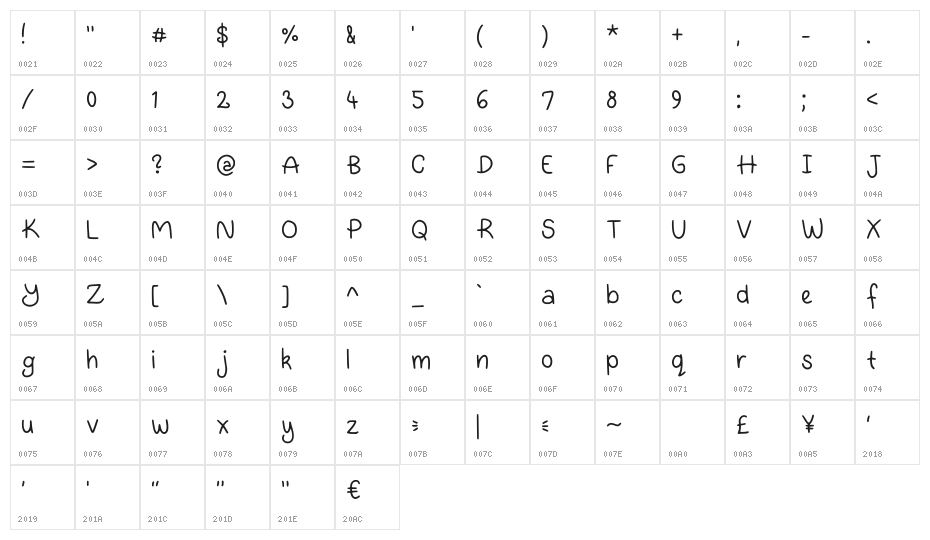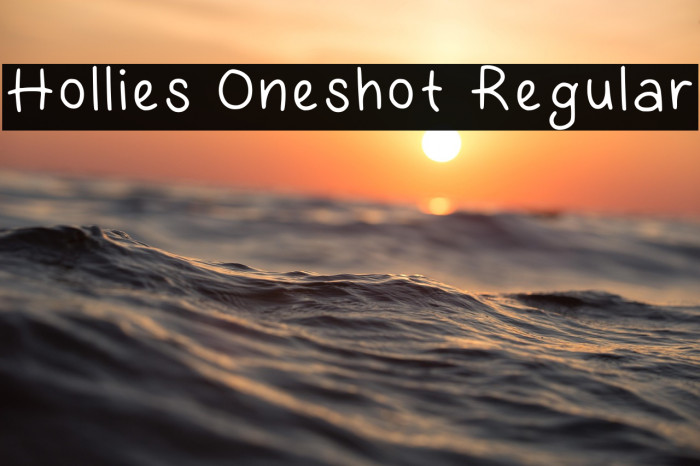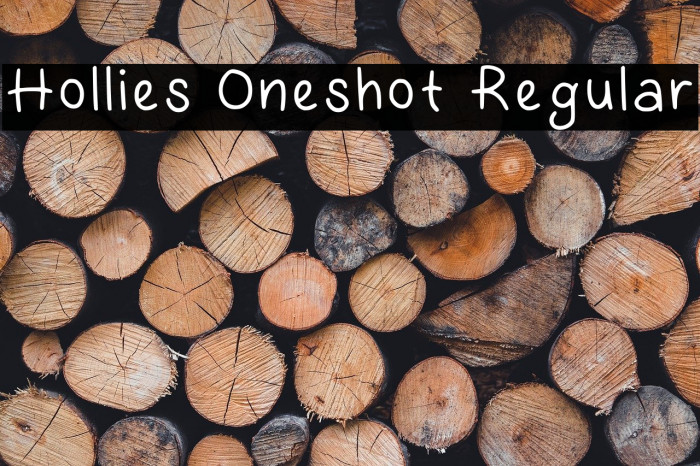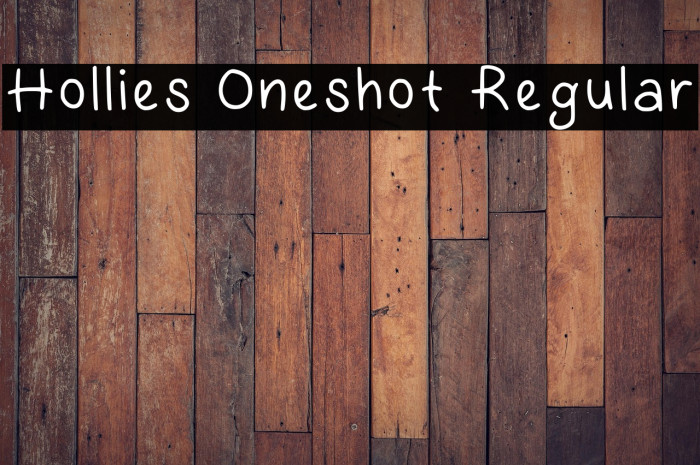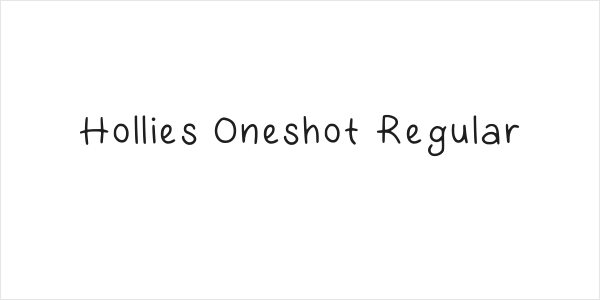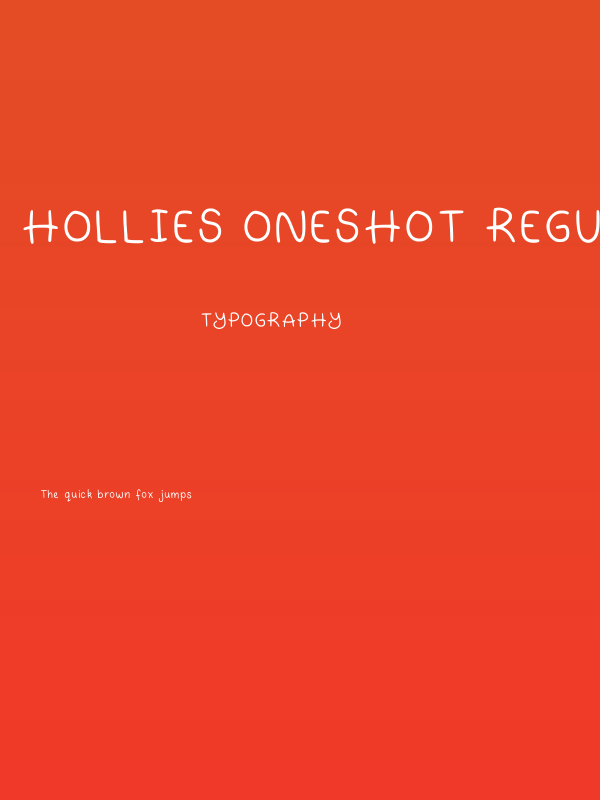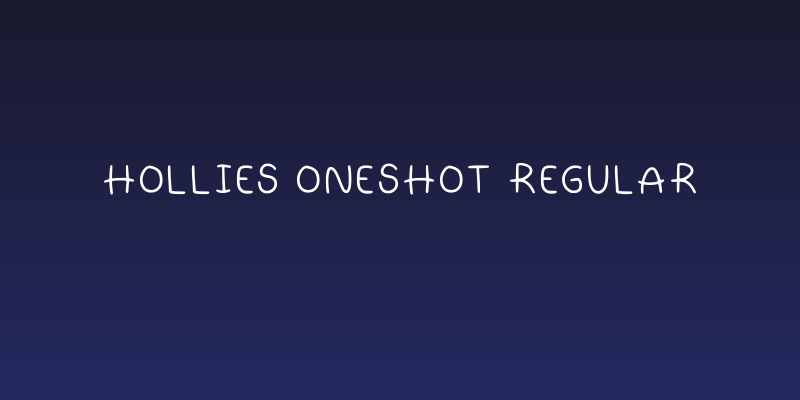
Hollies Oneshot Regular Font
Hollies Oneshot Regular Description
This font features a playful and casual handwritten style, characterized by its rounded and slightly irregular letterforms. The uppercase and lowercase letters maintain a consistent flow, with a friendly and approachable appearance. The numerals and special characters complement the overall style, enhancing its versatility. The strokes are uniform, providing a clean and legible look suitable for informal contexts. Its unique charm makes it ideal for projects that require a personal touch, such as greeting cards, invitations, or children's books.
| Proposed Projects | Ideal for greeting cards, invitations, children's books, and informal branding. |